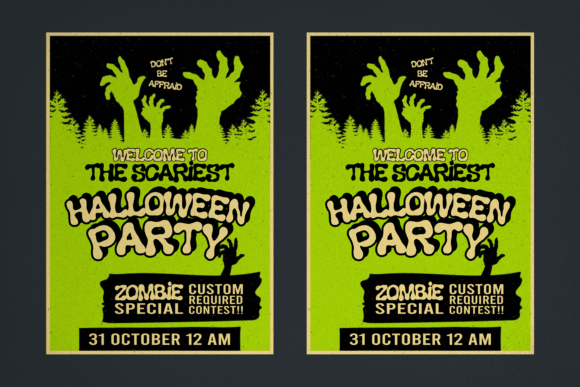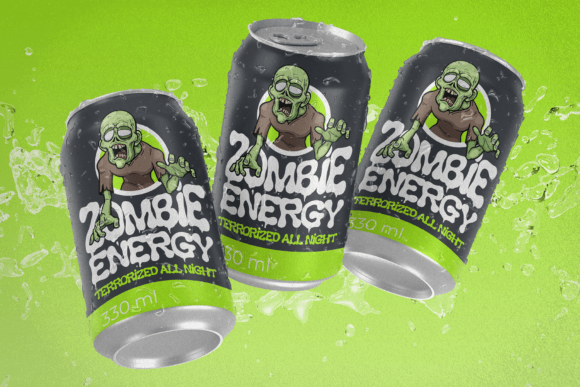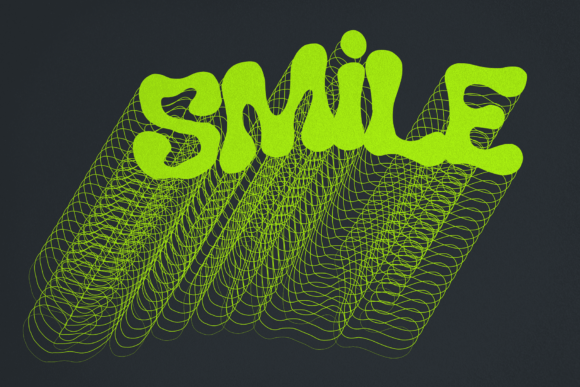
Introduction to Grims Acid Font
As a designer, you’ve probably found yourself staring at a blank canvas, searching for the perfect font to bring your creative project to life. The thrill of the hunt, the agony of the search – it’s a familiar feeling for many of us. But what if you stumbled upon a font that’s so eerie, so unsettling, that it makes your skin crawl? Welcome to the world of Grims Acid Font, a spine-chilling display font that’s guaranteed to add a touch of horror and dark whimsy to your designs.
With its twisted, dripping letters and macabre aesthetics, Grims Acid Font is the perfect design resource for any creative project that needs a boost of eerie charm. Whether you’re working on a spooky party invitation, a haunted house poster, or a social media graphic that’s sure to send shivers down the spine, this font is a must-have. And the best part? It’s available for free download, so you can add a high-quality, transparent background to your design and make it truly unforgettable.
- Unique, futuristic design with a transparent background, perfect for creative projects.
- Grims Acid Font is ideal for use in digital design, graphic design, and typography projects.
- Its bold, edgy style makes it a great choice for creating eye-catching and memorable designs.
Honest Review: Grims Acid Font
As a designer, I’m always on the lookout for unique and high-quality design resources to elevate my creative projects. The Grims Acid Font is one such resource that caught my attention. On the surface, it looks like a typical font, but trust me, it’s more than that.
- What works well: The Grims Acid Font has a bold and edgy design that’s perfect for making a statement in any creative project. Its transparent background allows for seamless integration with any background image or color, giving you complete control over the design. ✨
While the Grims Acid Font excels in many areas, there are a few limitations worth mentioning. ⚠️ The font may not be suitable for all types of projects, particularly those that require a more subtle or professional look. Additionally, the font’s bold design may not be easily readable in smaller sizes.
Overall, I’m impressed with the Grims Acid Font’s unique design and high quality. It’s a great resource for designers who want to add a touch of edginess to their creative projects. With a little care and attention to detail, this font can elevate any design to the next level.
For the best results, use Grims Acid Font with a high-quality design and a transparent background. Experiment with different font sizes, colors, and styles to create a unique look.
Common Use Cases for Grims Acid Font
Grims Acid Font is perfect for creative projects such as posters, flyers, and brochures. It’s also great for designing logos, business cards, and other marketing materials.